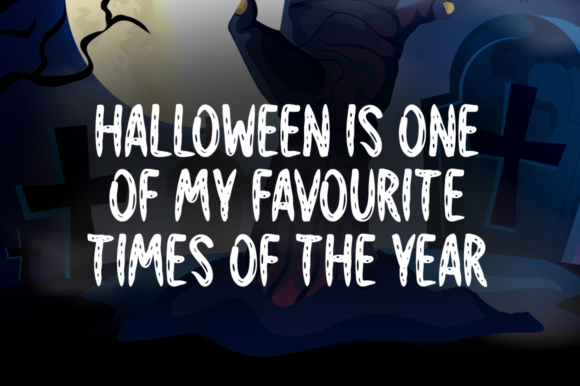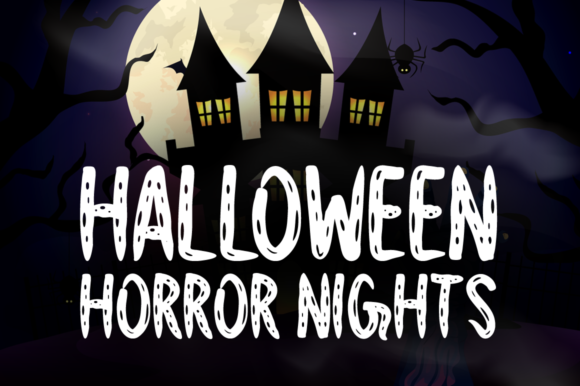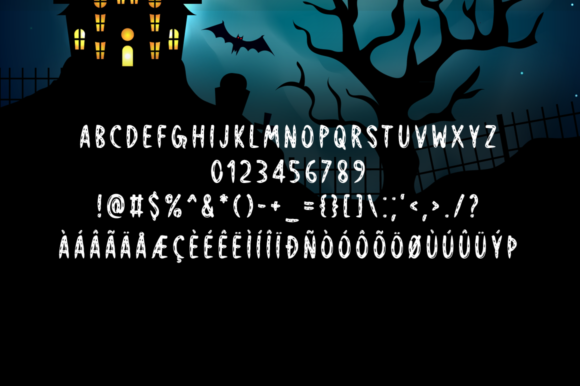
Introduction to Shadowy Font
Shadowy is a quirky display font.
Its friendly feel makes this font incredibly versatile, fitting a wide range of contexts Add it to your creative ideas and notice how it makes them stand out.
Key Features of Shadowy Font